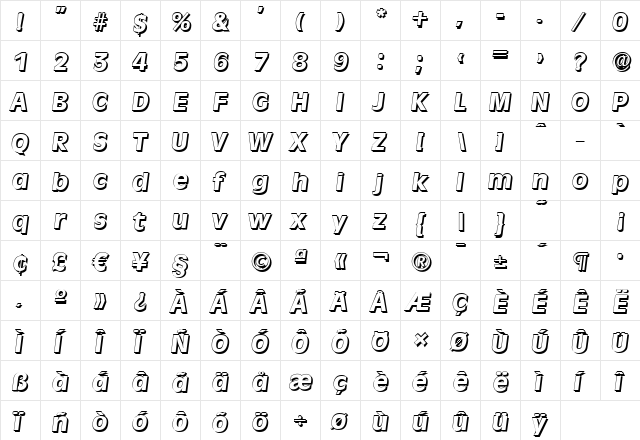
ArthurBeckerShadow-ExtraBold Italic Font Preview
Design Context for ArthurBeckerShadow-ExtraBold Typeface
ArthurBeckerShadow-ExtraBold brings ornamental detail and strong personality to headlines and identities, where visual impact matters more than quiet functionality. The dynamic lean of this cut emphasises speed and emphasis in any layout. Its bold stroke weight gives it real presence on the page.
Font Pairing: Pair with a clean neutral sans-serif for body copy to let ArthurBeckerShadow-ExtraBold's character lead without overwhelming the composition.
Pro Tip: Treat ArthurBeckerShadow-ExtraBold as the centrepiece of your typographic hierarchy. One strong heading set in a decorative face can carry an entire layout.